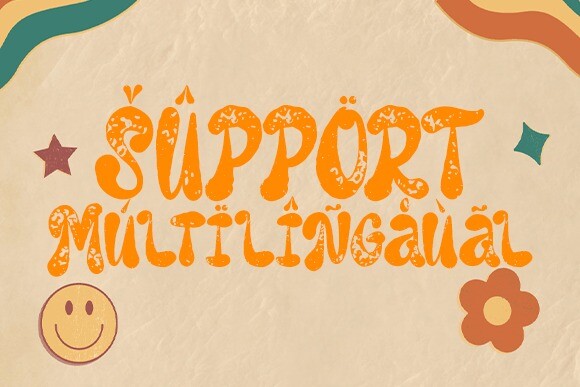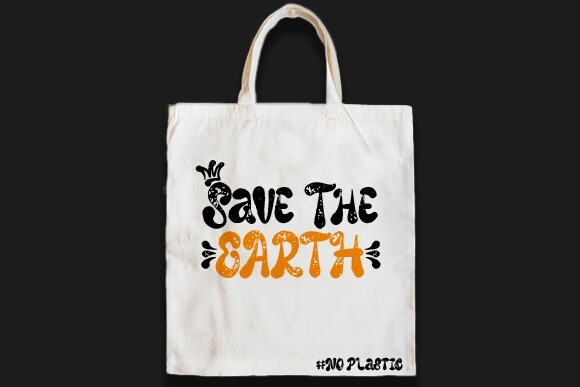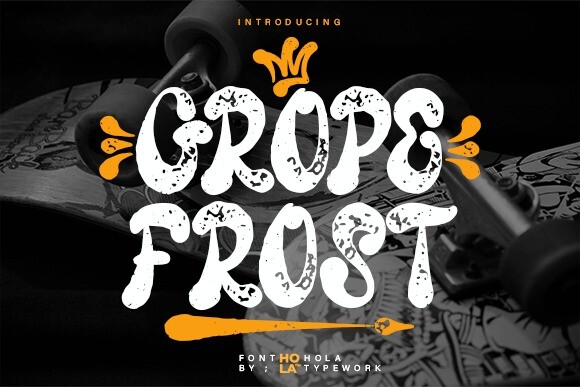
Grope Frost Font
Grope Frost Font: a quintessentially Natural Retro Brush Font aimed to breathe life into your creative endeavors. As a display font, it subtly elevates the visual appeal of your designs, infusing them with a nostalgic, retro charm. Ideal for crafting heartfelt quotes, delightful greeting cards, distinctive branding or vibrant promotions, it’s a go-to tool for those in search of a creative edge. Embrace the allure of the past and make your advertisements stand out, courtesy of Grope Frost!